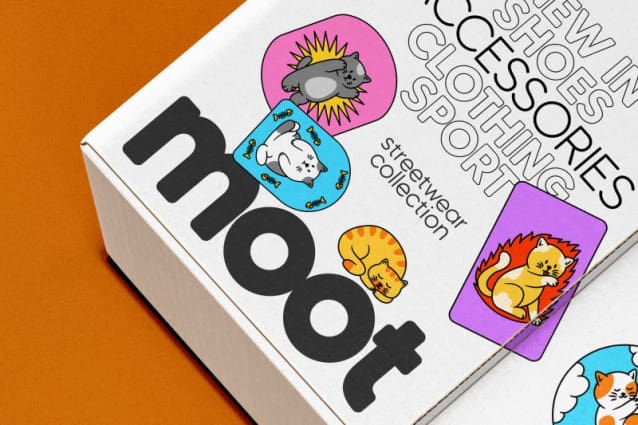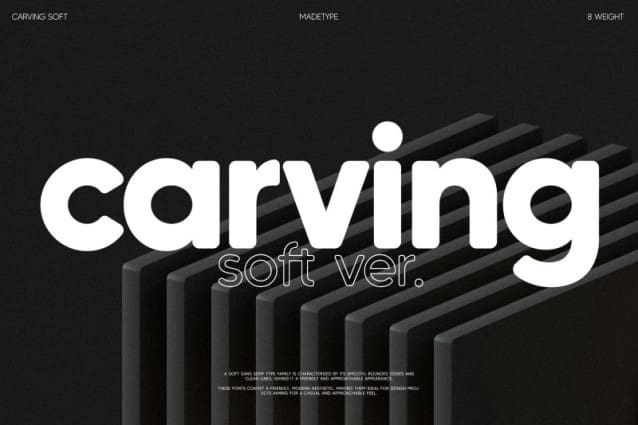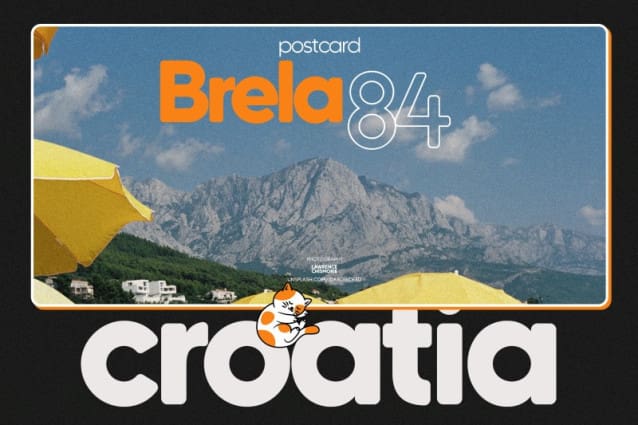
MADE Carving Soft Font
MADE Carving Soft Font by MadeType is a soft & modern sans serif typefamily. MADECarving Soft will perfect for many project: fashion, magazines, logo, branding, photography, invitations, wedding invitation, quotes, blog header, poster, advertisements, postcard, book, websites, etc.